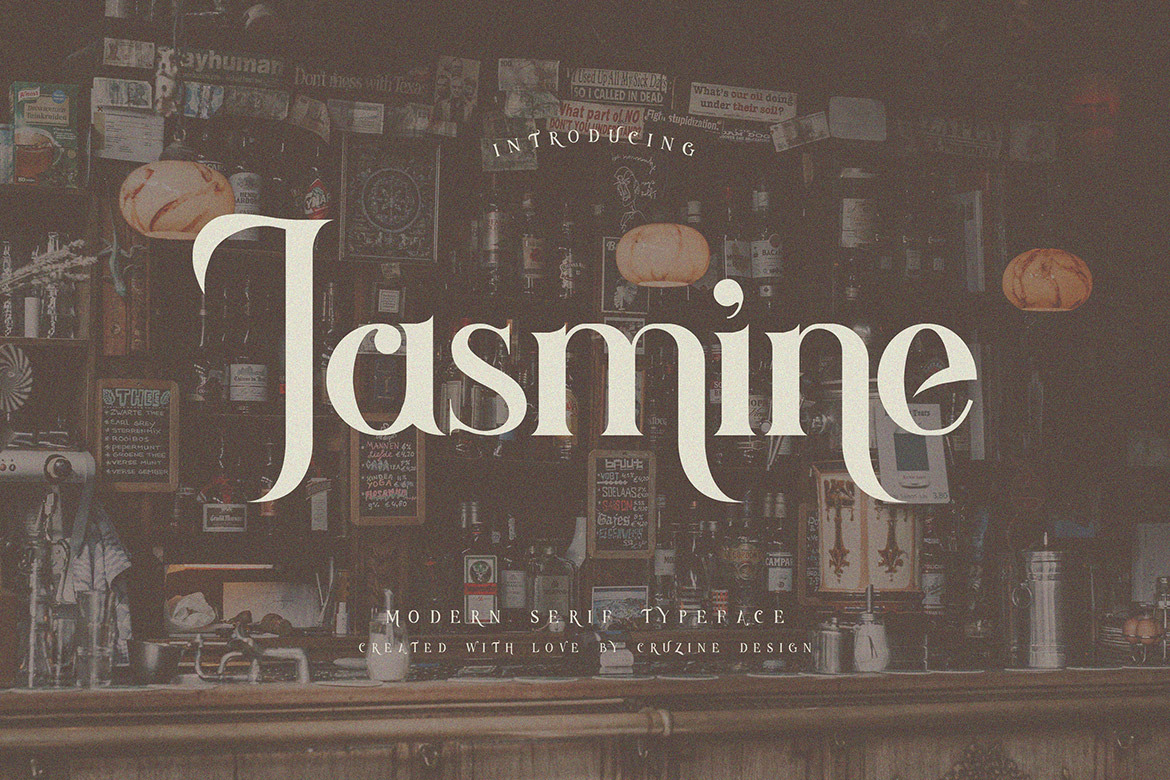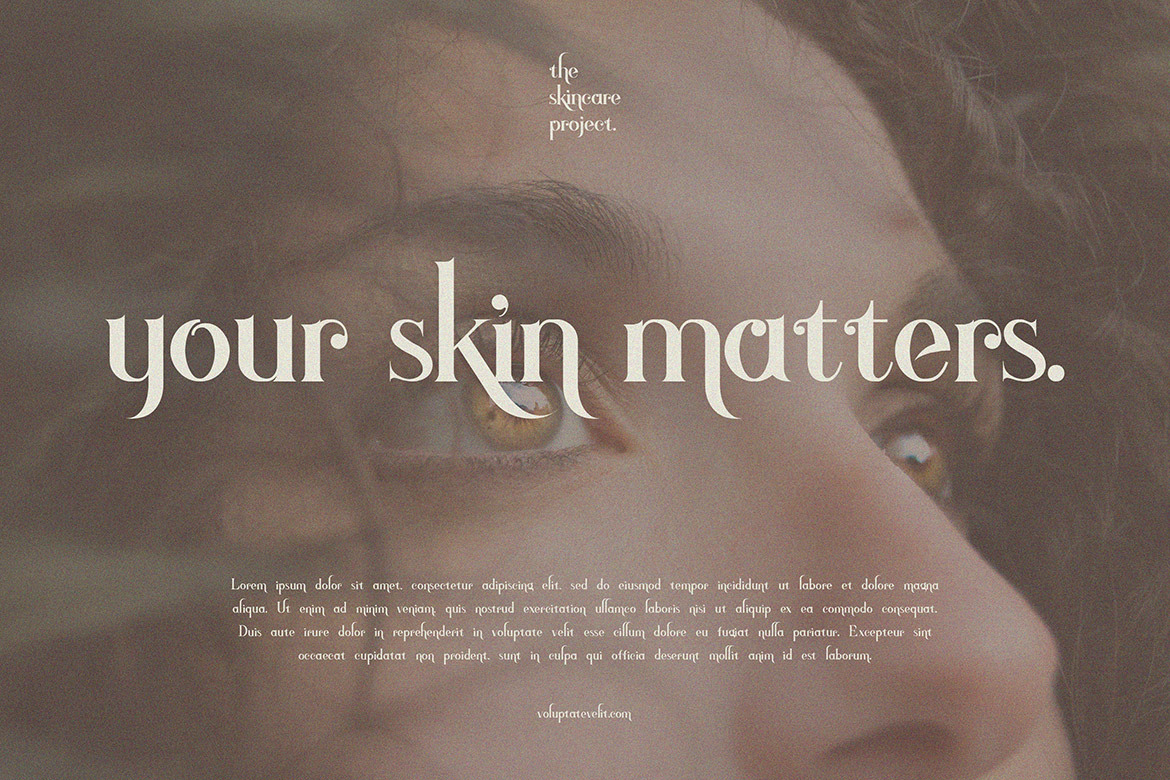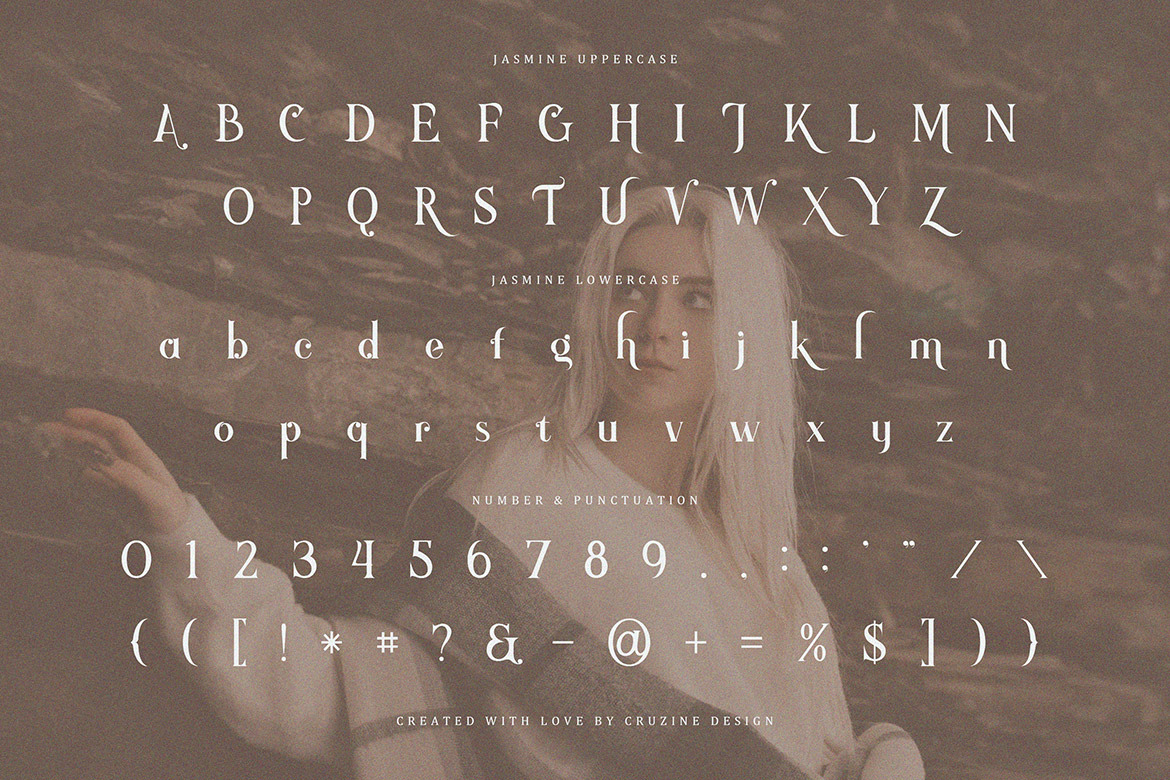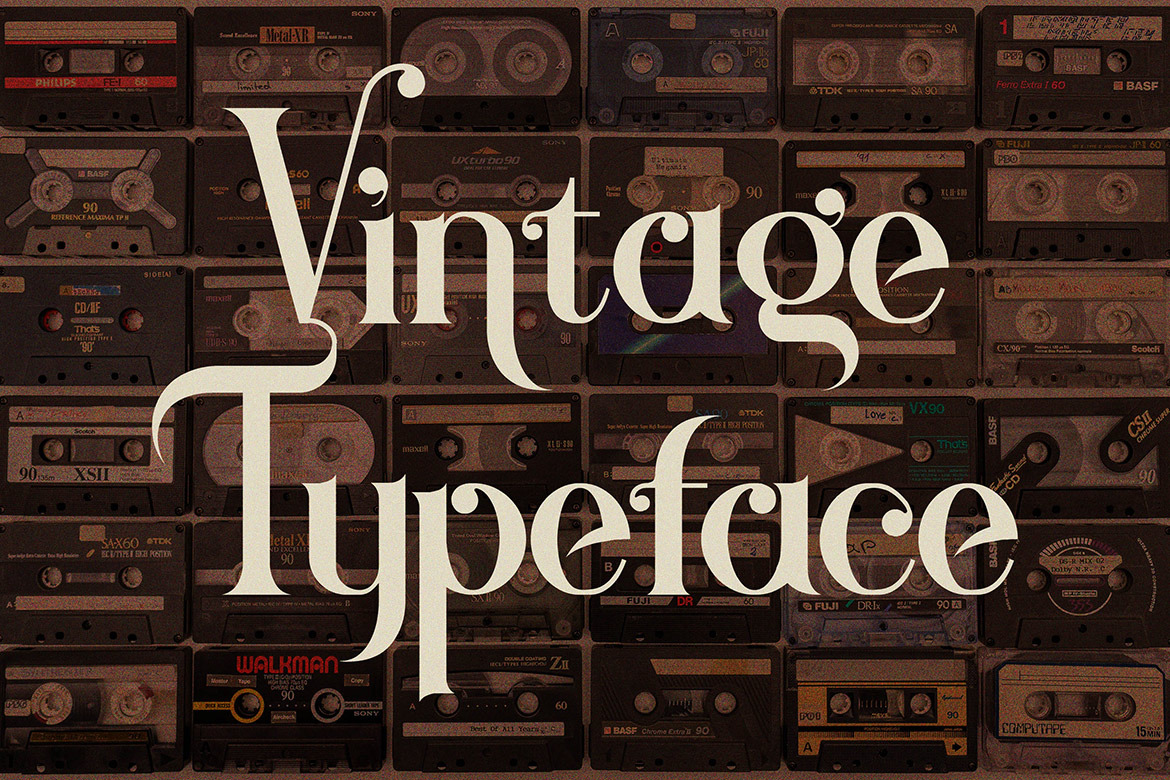
Jasmine Vintage Font
Vintage, decorative, retro & classy serif font. Great for your new logo or branding project.
-Great for retro or vintage style branding projects